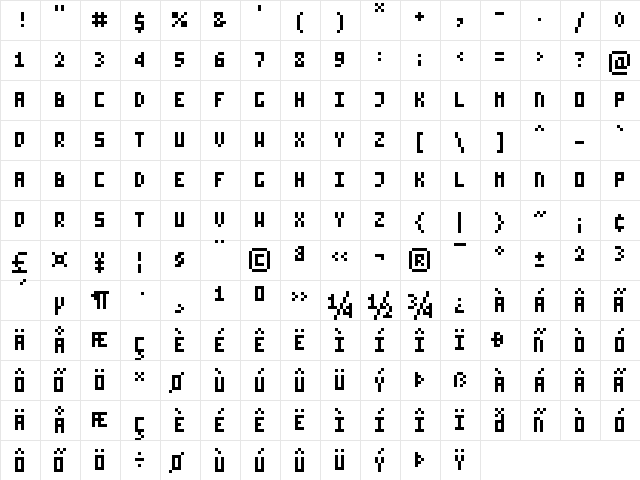
Zepto Regular
| Foundry | Domenico Mazza |
Design Context for Zepto Typeface
Zepto offers clean, dependable letterforms without strong stylistic allegiance, making it a practical choice for designers who need flexibility.